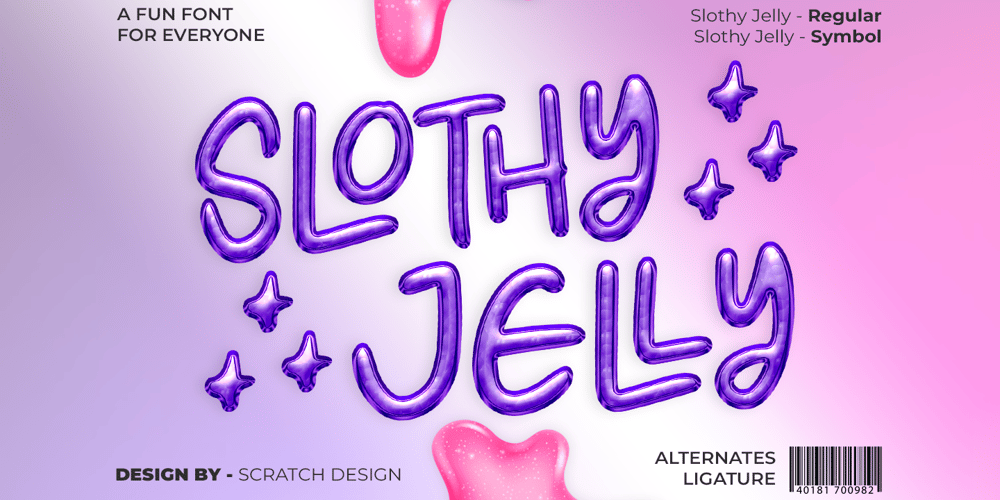
Slothy Jelly Font Family was designed by Gitayogi Irhandi and published by Scratch Design. Slothy Jelly contains 2 styles and family package options. Introducing Slothy Jelly! A fun font for everyone.Slothy Jelly is a cute handwritten font that has fun and happy characteristics. This font is authentically handwritten with the marker pen for a consistent look. This font also has alternates so you can mix and match the letters and make it more fun! For some extra hand-drawn cuteness, this font is also thrown in a bonus font with symbols like emojis, hearts, underlines, arrows, and circles – and drawn with the same pen to perfectly go with the writing. So it will help to make your design more cute and happy. This font is suitable for branding, posters, children’s books, magazines and others.Your download will contain the following fonts such as Slothy Jelly Regular – a pretty and cute handwritten including a set of uppercase, lowercase, alternates, ligatures and multilingual support. Slothy Jelly Symbols – a dingbat font of many hand-drawn elements These fonts will work in any program, but please note that the alternates and ligatures of the font can only be accessed on software that supports OpenType features. Thank you for your purchase!Hope you enjoy this font